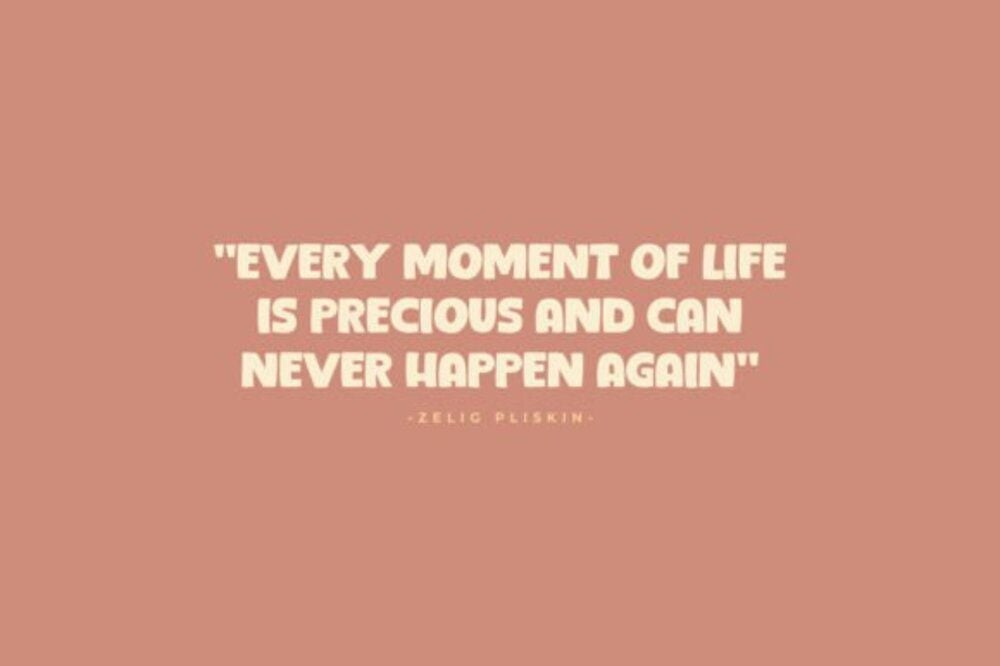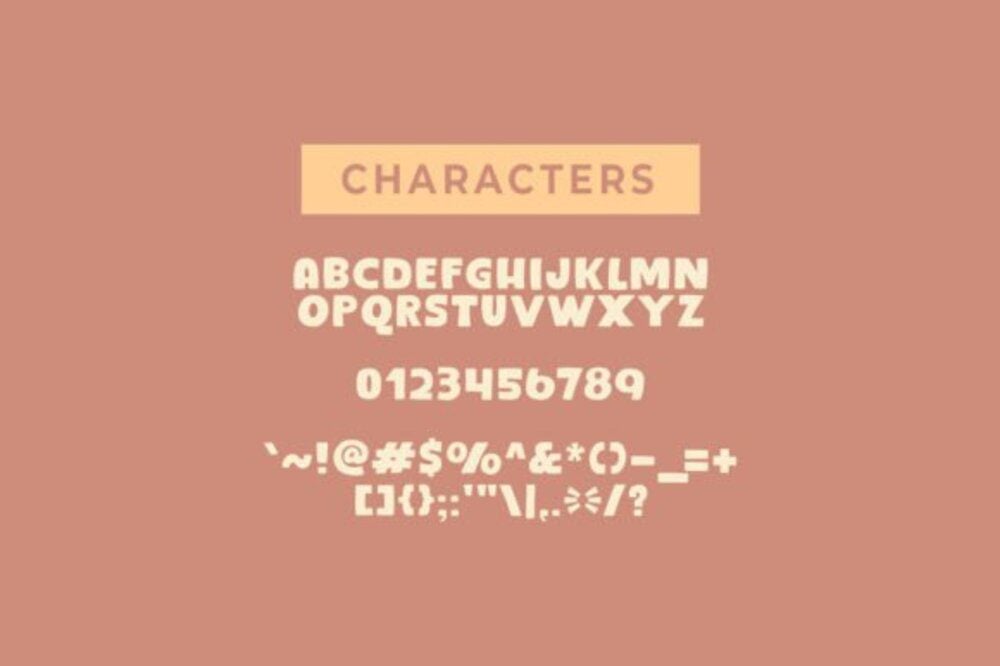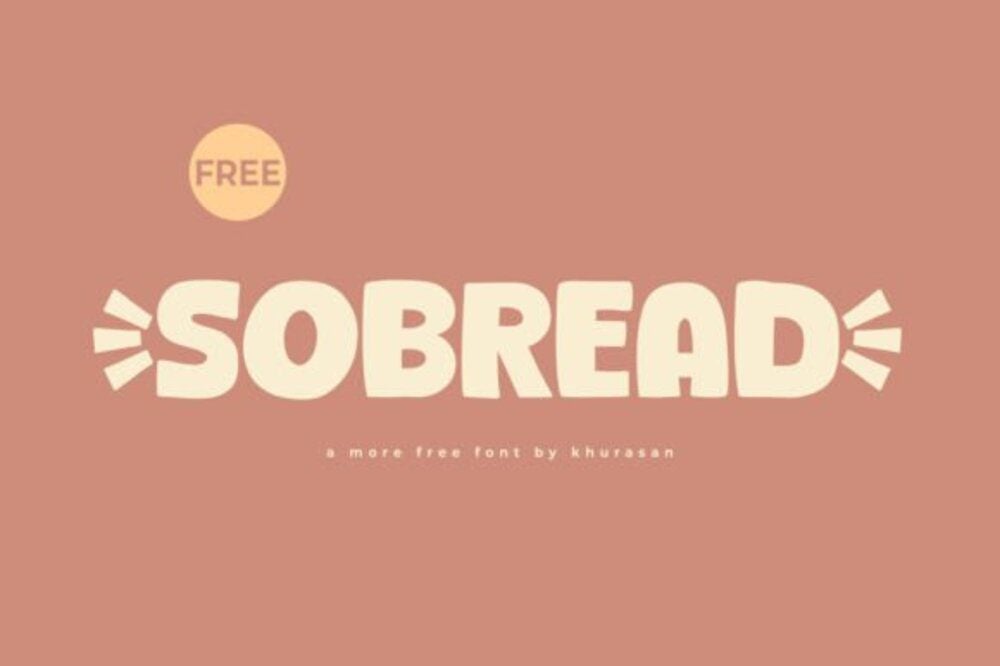
Sobread Font
Sobread Font is a sleek and modern typeface with a minimalist yet expressive design. Its clean lines and balanced proportions make it ideal for branding, logos, and editorial projects. Versatile and highly readable, Sobread Font effortlessly combines simplicity with sophistication, adding a contemporary flair to any design while ensuring your message stands out with clarity and style.